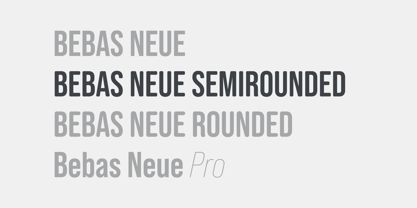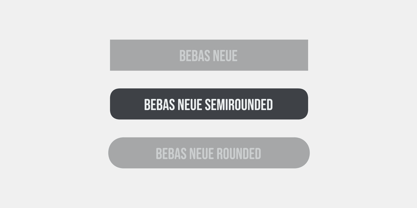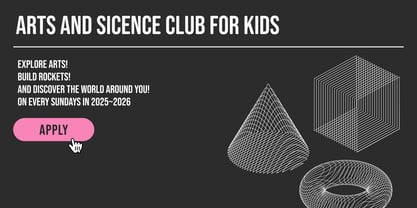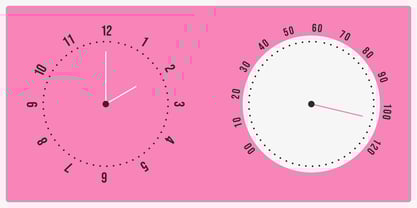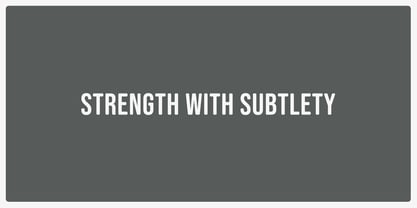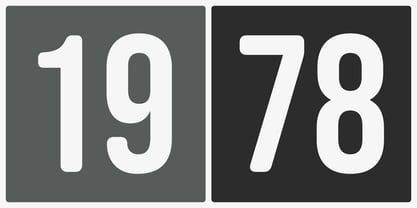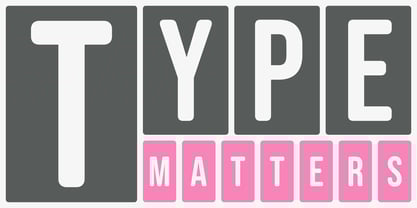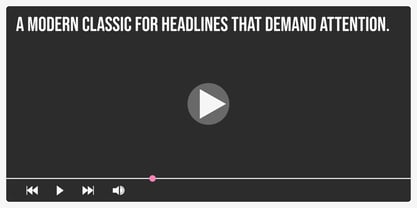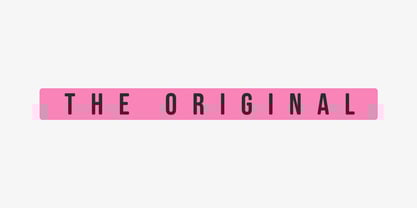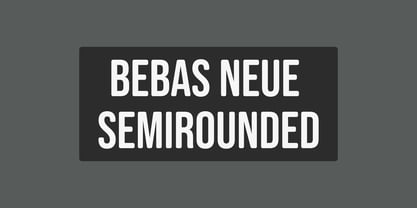
Bebas Neue SemiRounded
by Dharma Type
Bebas Neue SemiRounded is a softened variation of the widely popular Bebas Neue typeface, featuring subtly rounded corners for a warmer, more natural look.
While maintaining the same structure and proportions as the original, this semi-rounded style introduces a gentler, more approachable tone, making it suitable for a broader range of design applications.
Positioned stylistically between the original Bebas Neue and the fully softened Bebas Neue Rounded, it offers a balance of strength and softness—a perfect fit for modern branding, headlines, and display typography.
Designers: Ryoichi Tsunekawa
About Dharma Type
Dharma Type is a type design project launched in 2005 by Ryoichi Tsunekawa, aimed at providing exclusive fonts for designers around the world.The design styles span a wide spectrum—from retro and classic to experimental and futuristic, from formal to informal—reflecting the project's mission to fill niche demands in the design landscape.To date, Dharma Type has released around 100 Latin typefaces, including the widely popular Bebas Neue, an open-source font. Many of these typefaces have been featured in publications and used across a variety of media—ranging from movie titles (such as La La Land) to brand logos and posters.